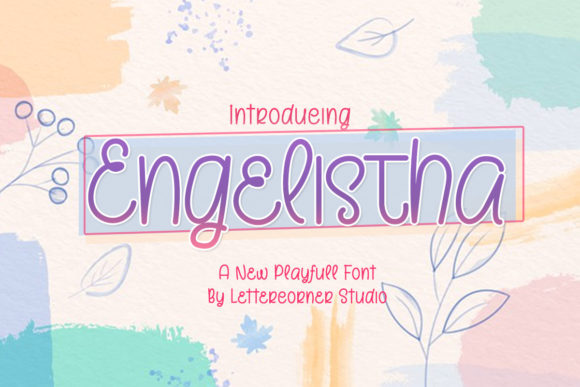
Introducing Engelistha Font: The Ultimate Playful Handwritten Font for Your Creative Projects
Are you a designer, crafter, or DIY enthusiast looking for a font that can add a touch of warmth and personality to your projects? Look no further than Engelistha Font, a simple yet playful handwritten font that’s perfect for creating beautiful and eye-catching designs. In this article, we’ll explore the features and benefits of Engelistha Font, and show you how to make the most of this amazing font.
What is Engelistha Font?
Engelistha Font is a modern handwritten font that’s designed to bring a sense of joy and playfulness to your projects. With its warm and romantic feel, this font is perfect for creating designs that are both elegant and whimsical. Whether you’re working on a branding project, a craft tutorial, or a DIY guide, Engelistha Font is the perfect choice.
Key Features of Engelistha Font
- Simple and Playful Design: Engelistha Font features a simple yet playful design that’s perfect for creating hand-drawn looks.
- Warm and Romantic Feel: This font has a warm and romantic feel that’s perfect for creating elegant and sophisticated designs.
- Endless Variations: With Engelistha Font, you can create endless variations of your designs, making it perfect for experimenting with different styles and ideas.
- Easy to Read: This font is highly legible, making it perfect for body text and headlines.
Benefits of Using Engelistha Font
So why choose Engelistha Font for your projects? Here are just a few benefits of using this amazing font:
- Adds Personality to Your Designs: Engelistha Font adds a touch of personality and whimsy to your designs, making them stand out from the crowd.
- Perfect for Handmade and DIY Projects: This font is perfect for handmade and DIY projects, such as crafting tutorials, sewing patterns, and more.
- Great for Branding and Marketing: Engelistha Font is also great for branding and marketing projects, such as logos, business cards, and social media graphics.
Tips for Using Engelistha Font
- Use for Headlines and Body Text: This font is perfect for both headlines and body text, making it a versatile choice for any project.